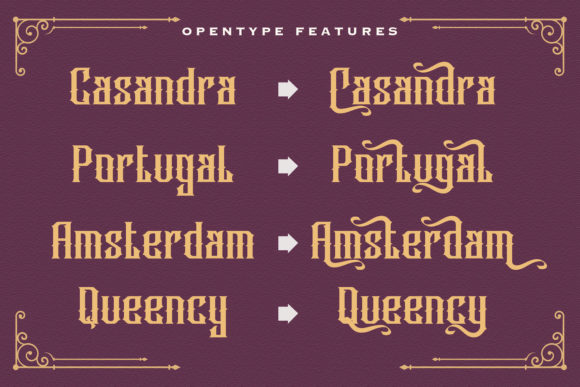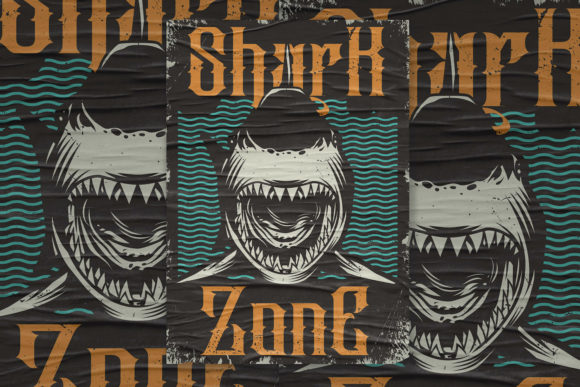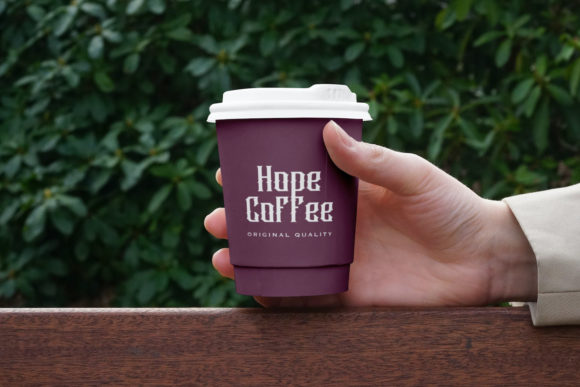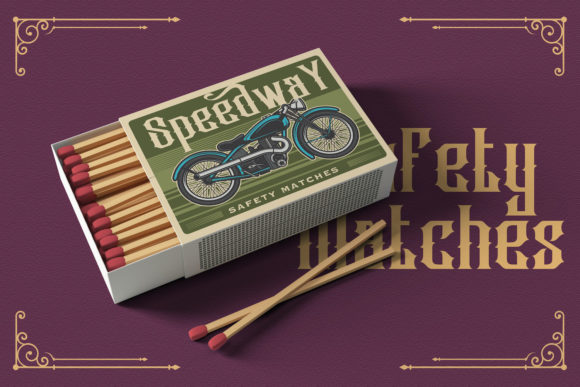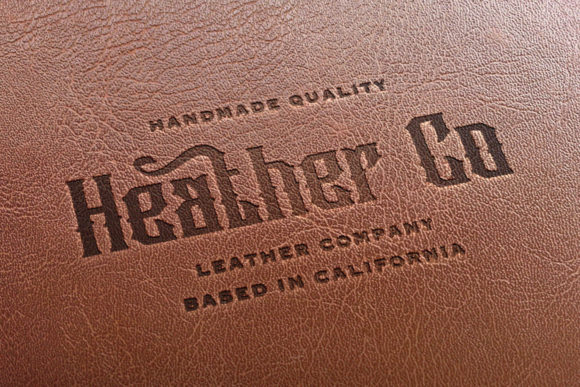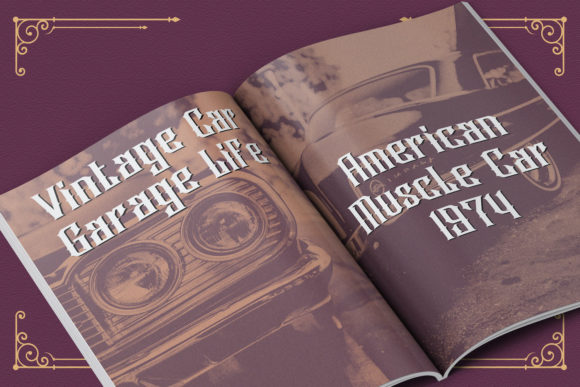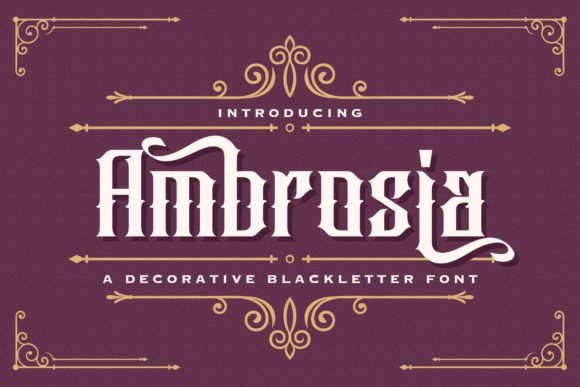
Introducing Ambrosia Font: A Timeless Blackletter Typeface
Are you tired of using the same old fonts for your creative projects? Look no further than Ambrosia Font, a unique and solemn blackletter typeface that combines vintage charm with modern flair. With its stunning gothic style, Ambrosia is sure to elevate the look of any design, from craft projects to digital creations.
The Characteristics of Ambrosia Font
Ambrosia Font is a blackletter typeface that boasts a distinctive, ornate style reminiscent of traditional Gothic architecture. Its intricate lettering and dramatic flourishes evoke a sense of history and tradition, while its clean lines and modern aesthetic ensure it remains fresh and relevant. Whether you’re looking to add a touch of elegance to a wedding invitation or create a bold statement for a branding campaign, Ambrosia Font is the perfect choice.
What Makes Ambrosia Font So Special?
So, what sets Ambrosia Font apart from other typefaces on the market? Here are just a few reasons why designers and crafters are falling in love with this stunning font:
- Unique and Memorable: Ambrosia Font’s distinctive blackletter style ensures that your designs will stand out from the crowd and leave a lasting impression on your audience.
- Vintage yet Modern: With its classic Gothic inspiration and modern aesthetic, Ambrosia Font is perfect for designers who want to add a touch of history to their work without sacrificing contemporary style.
- Highly Versatile: Whether you’re working on a digital project, crafting a handmade card, or designing a professional brand identity, Ambrosia Font is the perfect choice for a wide range of creative applications.
- Elegant and Sophisticated: Ambrosia Font’s ornate details and flowing lines add a touch of luxury to any design, making it perfect for high-end branding, wedding invitations, and other special occasions.
Using Ambrosia Font in Your Designs
Ambrosia Font is incredibly easy to use, even for designers who are new to working with blackletter typefaces. Here are a few tips for getting the most out of this stunning font:
- Pair with Simple Backgrounds: Ambrosia Font’s intricate details can be overwhelming if paired with busy backgrounds. Try pairing it with simple textures or solid colors to let the font take center stage.
- Experiment with Colors: While Ambrosia Font looks stunning in traditional black and white, it’s also a great choice for designers who want to add a pop of color to their work. Try experimenting with different hues to find the perfect match for your project.
- Use for Headlines and Titles: Ambrosia Font’s dramatic flourishes and ornate details make it perfect for headlines and titles. Use it to add a touch of elegance to your designs and draw attention to key messages.
Who is Ambrosia Font For?
Ambrosia Font is perfect for designers, crafters, and DIY enthusiasts who want to add a touch of elegance and sophistication to their work. Whether you’re a:
- Graphic Designer: Looking for a unique and memorable font to add to your branding or advertising projects.
- Crafter: Creating handmade cards, invitations, or other paper crafts that require a touch of luxury.
- DIY Enthusiast: Working on a home decor or crafting project that requires a unique and eye-catching font.
In conclusion, Ambrosia Font is a timeless blackletter typeface that combines vintage charm with modern flair. With its stunning gothic style, intricate details, and highly versatile design, it’s the perfect choice for designers and crafters who want to elevate the look of their creative projects. Whether you’re working on a digital design, crafting a handmade card, or creating a professional brand identity, Ambrosia Font is sure to make a lasting impression.